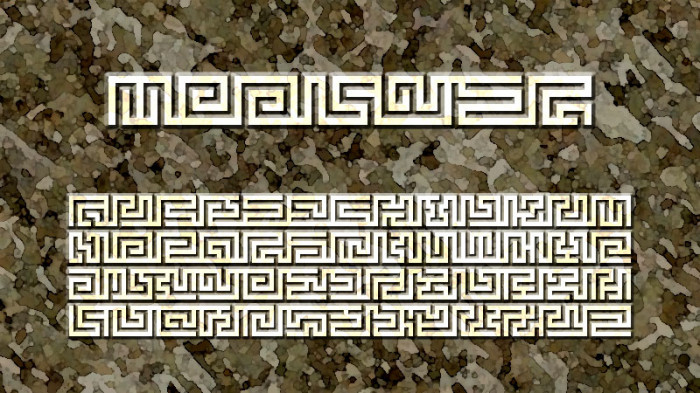
• This font is inspired by Greek keys and Mitsuin-tai (密印体).
A multiple of 7 pixel size is recommended.
You can use commas, periods, hyphens, and forward slashes to join the characters.
i can clearly see inspiration from eric mourier in this one
You're right, it looks a lot like it. I didn't know that.
More specifically, Raimon (a Chinese lucky motif that geometrically deforms thunderclouds) is the inspiration.